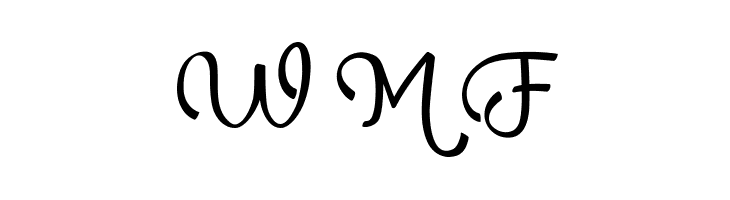
( fey design - Fey Design - www.creativemarket.com/feydesign )
A whimsical and flowing script font with elegant curves and loops.
( fey design - Fey Design - www.creativemarket.com/feydesign )
An elegant script font with flowing cursive style and intricate swashes.
( fey design - Fey Design - www.creativemarket.com/feydesign )
A sophisticated script font with high contrast and elegant, flowing strokes.
( fearlessforever13 - www.fontspace.com/fearlessforever13 )
A playful and casual handwritten font with smooth, rounded letterforms.
( estoeslomio - Mar Hermida - www.estoeslomio.com )
A tall, ultra-condensed font with thin strokes and a modern aesthetic.
( enso - www.ensotype.com )
A bold, expressive brush-style font with dynamic, textured strokes.
( elharrak - elharrak fonts - el-harrak.blogspot.com/ )
Bold, geometric sans-serif icons in starburst badges for digital platforms.
( elharrak - elharrak fonts - el-harrak.blogspot.com/ )
Bold, circular icon set for tech and social media brands.
( elharrak - elharrak fonts - el-harrak.blogspot.com/ )
Highly decorative mandala-style symbol set with geometric and floral motifs.
( elharrak - elharrak fonts - el-harrak.blogspot.com/ )
A decorative collection of heart-themed symbols and designs conveying love and affection.